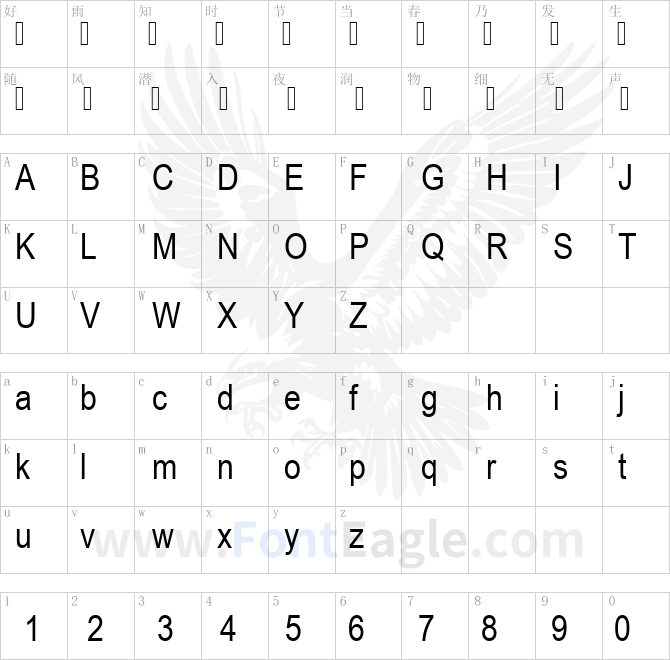
Arial-Narrow is a great font, widely used in graphic design, single-page menu design, poster design and other fields, and is deeply loved by designers.Arial-Narrow download.